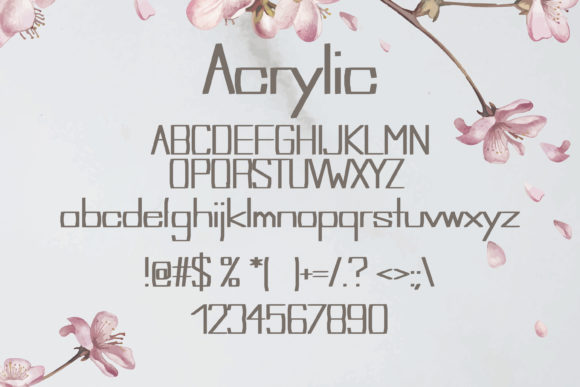
Introducing Acrylic Font: A Futuristic and Geometric Display Font
Are you looking for a font that can add a touch of futurism and geometry to your design projects? Look no further than Acrylic Font, a rigid display font that’s perfect for branding, poster art, web, and app development. In this article, we’ll dive into the features and benefits of Acrylic Font, and explore how you can use it to take your designs to the next level.
What is Acrylic Font?
Acrylic Font is a display font that’s characterized by its squared shape and futuristic feel. The font’s geometric design gives it a unique and modern look that’s perfect for designs that require a bold and edgy aesthetic. The font’s rigid structure makes it ideal for use in headings, titles, and other display text, where a clean and precise look is essential.
Key Features of Acrylic Font
• Squared shape: The font’s characters are squared in shape, giving it a geometric and futuristic feel.
• Rigid structure: The font’s rigid structure makes it perfect for use in headings and display text.
• Futuristic and modern look: The font’s geometric design gives it a unique and modern look that’s perfect for designs that require a bold and edgy aesthetic.
• Perfect for branding and poster art: The font’s bold and geometric design makes it ideal for use in branding and poster art projects.
• Suitable for web and app development: The font’s clean and precise design makes it suitable for use in web and app development projects.
Benefits of Using Acrylic Font
So, why should you use Acrylic Font in your design projects? Here are just a few benefits of using this versatile font:
• Adds a touch of futurism: The font’s geometric design gives it a futuristic feel that’s perfect for designs that require a modern and edgy aesthetic.
• Improves readability: The font’s clean and precise design makes it easy to read, even at small sizes.
• Increases versatility: The font’s bold and geometric design makes it suitable for use in a wide range of design projects, from branding and poster art to web and app development.
• Enhances creativity: The font’s unique and modern look can help to inspire creativity and add a touch of personality to your designs.
How to Use Acrylic Font in Your Design Projects
Acrylic Font is a versatile font that can be used in a wide range of design projects. Here are just a few ideas for how you can use this font:
• Branding projects: Use Acrylic Font to create bold and eye-catching logos, business cards, and other branding materials.
• Poster art: Use the font to create striking and attention-grabbing posters, flyers, and other print materials.
• Web development: Use Acrylic Font to add a touch of futurism and modernity to your website or web application.
• App development: Use the font to create bold and eye-catching app icons, menus, and other UI elements.
Tips for Getting the Most Out of Acrylic Font
Here are just a few tips for getting the most out of Acrylic Font:
• Use it sparingly: Because of its bold and geometric design, Acrylic Font can be overwhelming if used excessively. Use it sparingly to add emphasis and create visual interest.
• Pair it with other fonts: Acrylic Font pairs well with a wide range of fonts, from sans-serif fonts like Arial and Helvetica to script fonts like Pacifico and Great Vibes.
• Experiment with colors and textures: Acrylic Font looks great in a wide range of colors and textures. Experiment with different colors and textures to find the look that works best for your design.
Font Name Acrylic Font
Author DmDesignsStoreArt
Acrylic Font is a versatile and modern display font that’s perfect for designers and crafters who want to add a touch of futurism and geometry to their design projects. With its squared shape, rigid structure, and geometric design, Acrylic Font is ideal for use in branding, poster art, web, and app development. By following the tips and guidelines outlined in this article, you can get the most out of Acrylic Font and create stunning designs that showcase your creativity and style.